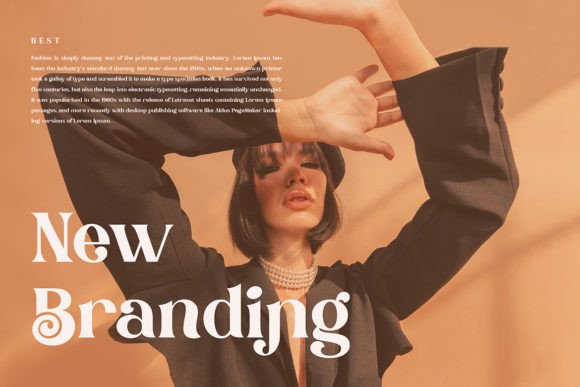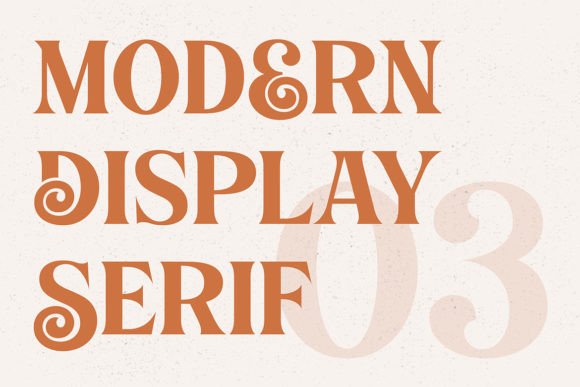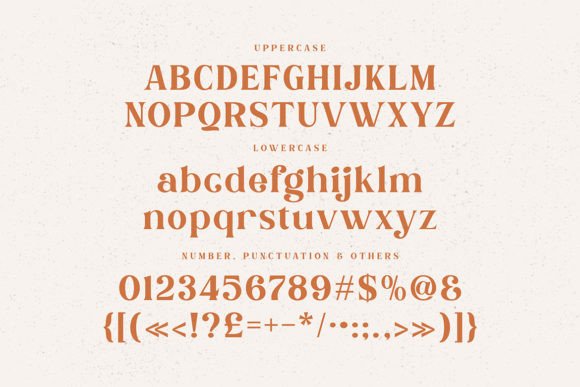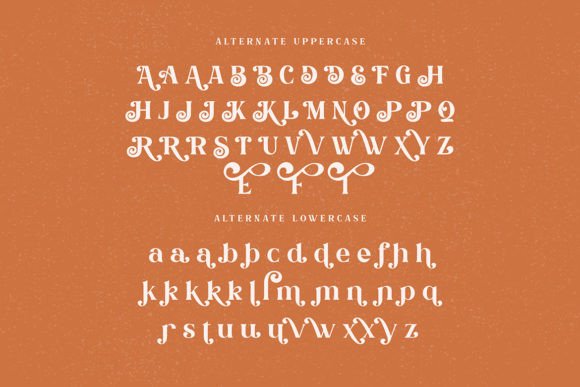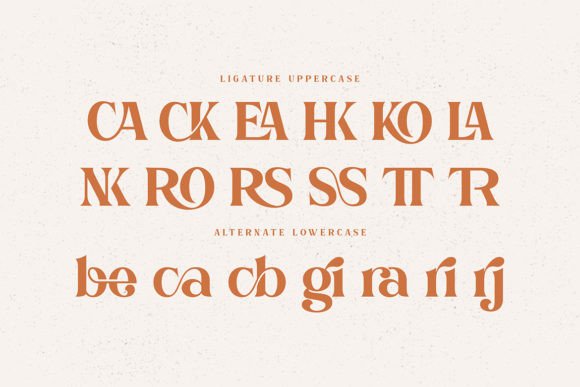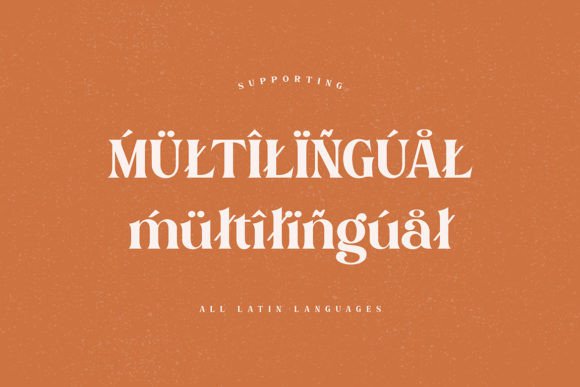
Bogimber Font: Elevate Your Designs with a Modern and Stylish Serif
In the world of typography, a good font can make all the difference in creating a design that stands out. For designers and crafters looking for a modern and stylish serif font, Bogimber is an excellent choice. This bold yet elegant font is perfect for creating trendy designs that capture attention. In this article, we’ll explore the features and benefits of Bogimber Font and why it’s a must-have for your design projects.
What is Bogimber Font?
Bogimber Font is a modern serif font designed to add a touch of sophistication to your designs. Its clean lines, elegant curves, and bold strokes make it perfect for creating a wide range of projects, from logos and branding materials to posters, flyers, and more. Whether you’re a professional designer or a crafter, Bogimber Font is an excellent choice for anyone looking to create a modern and trendy design.
Key Features of Bogimber Font
- Modern and Stylish Design: Bogimber Font boasts a sleek and contemporary design that’s perfect for creating modern and trendy designs.
- PUA Encoded: This font is PUA (Private Use Area) encoded, which means you can access all glyphs and swashes effortlessly. This feature makes it easy to use and customize the font to suit your design needs.
- Bold yet Elegant: Bogimber Font strikes the perfect balance between boldness and elegance, making it suitable for a wide range of design projects.
- Multilingual Support: This font supports multiple languages, making it a great choice for designers and crafters who work with international clients or create multilingual content.
Benefits of Using Bogimber Font
So, why choose Bogimber Font for your design projects? Here are just a few benefits of using this versatile font:
- Stand Out Designs: With Bogimber Font, you can create designs that stand out from the crowd. Its unique and stylish design ensures that your projects will grab attention and leave a lasting impression.
- Ease of Use: The PUA encoding of Bogimber Font makes it easy to use and customize. You can access all glyphs and swashes with ease, saving you time and effort in your design process.
- Versatility: Bogimber Font is suitable for a wide range of design projects, from logos and branding materials to posters, flyers, and more. Its versatility makes it a great addition to any designer’s or crafter’s font library.
- Professional Look and Feel: With Bogimber Font, you can give your designs a professional look and feel. Its elegant and sophisticated design ensures that your projects will look polished and refined.